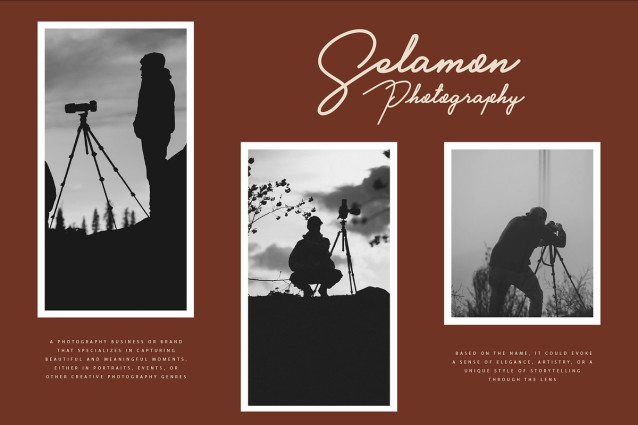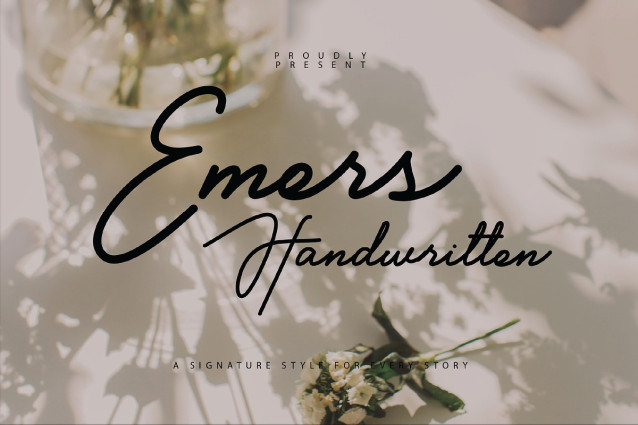
Emers Handwriting Font is a signature-style handwritten font designed to add a personal, stylish touch to any design. Its elegant and flowing strokes make it perfect for projects that require a sophisticated and authentic feel.
Emers Handwriting Font
| Designer Name: | Hanstype.com |
| Classification: | Elegant / Luxury Fonts, Handwritten Fonts, Script Fonts, Style / Aesthetic Fonts |